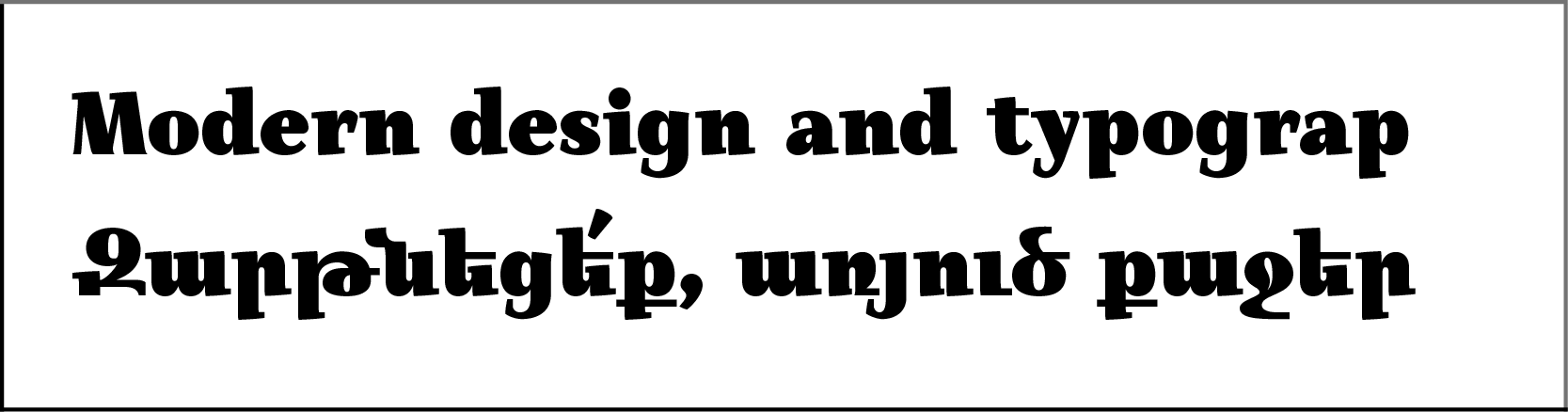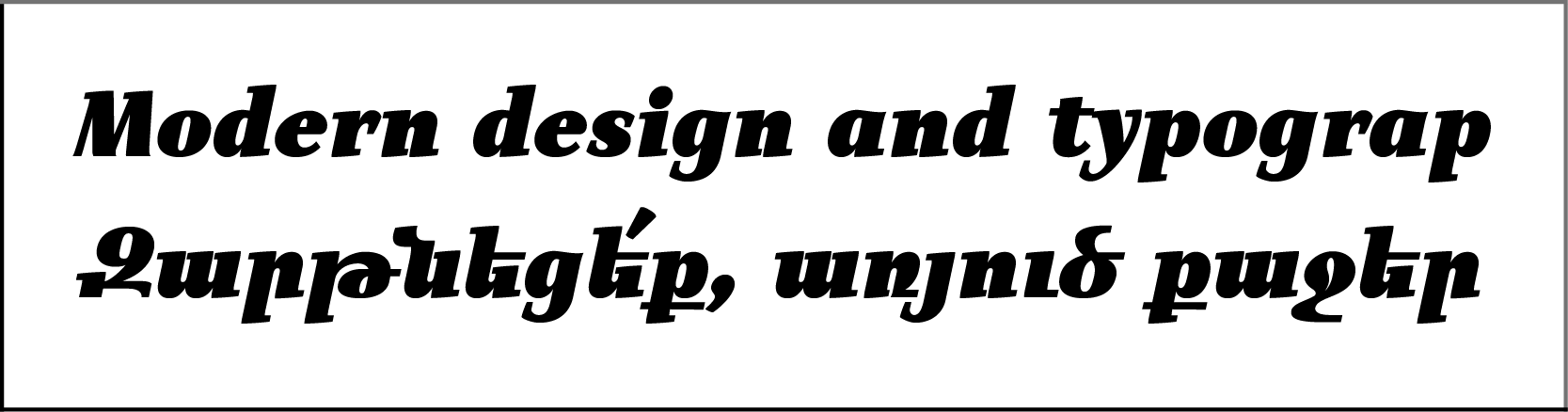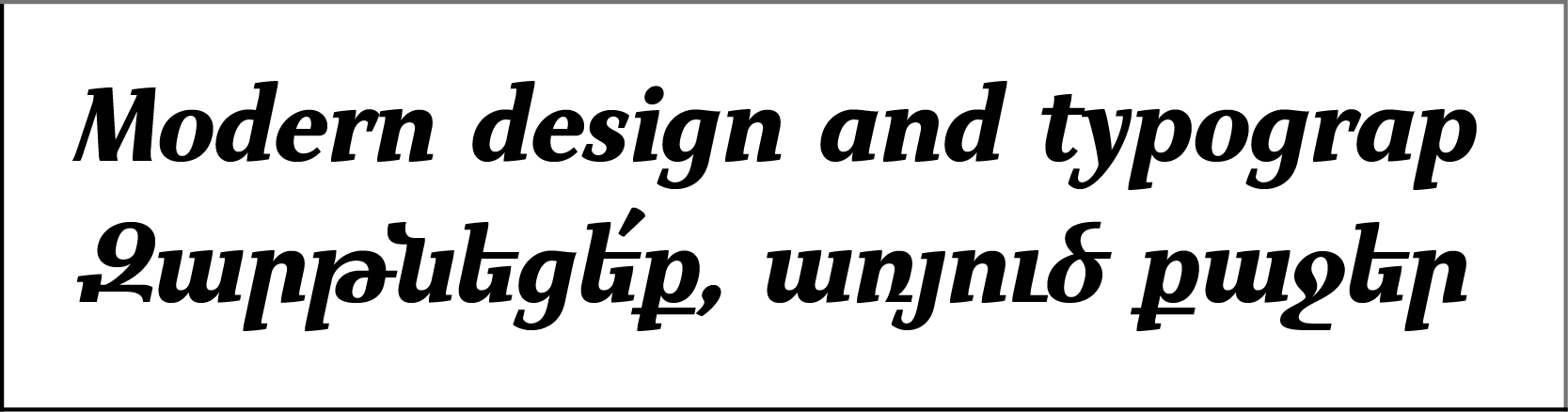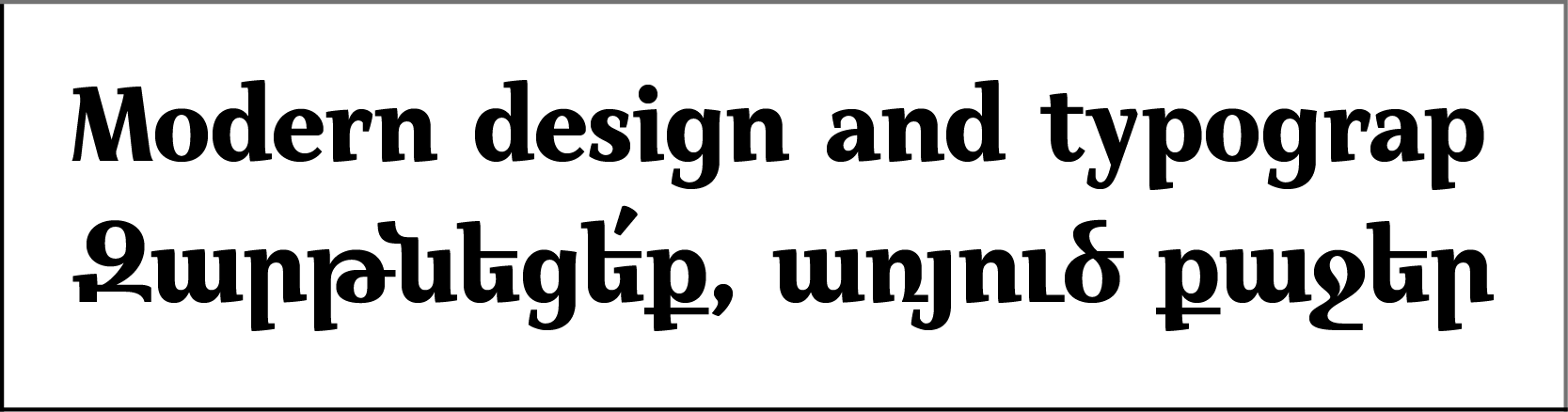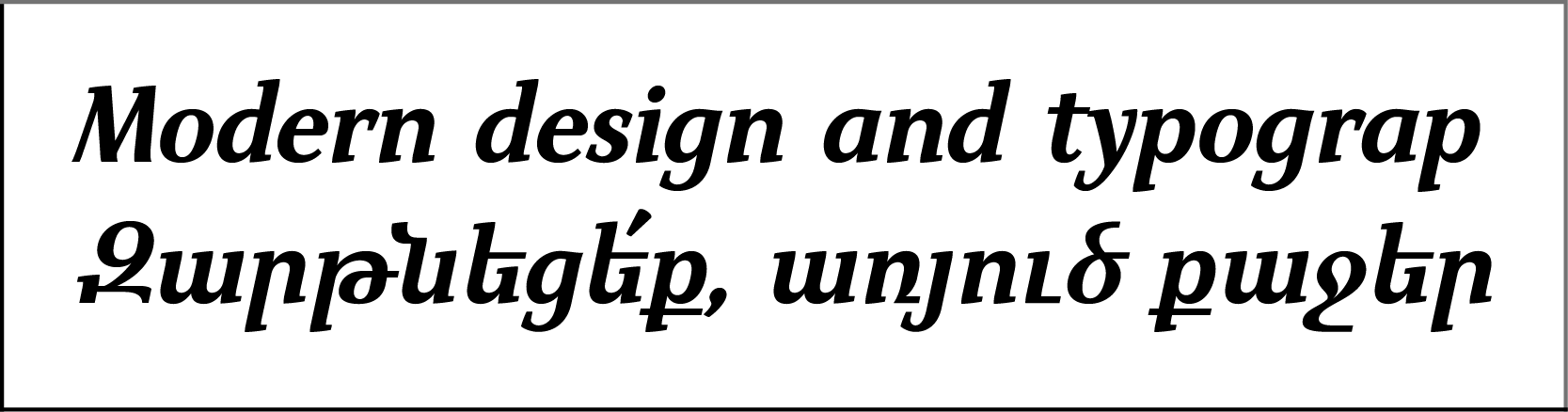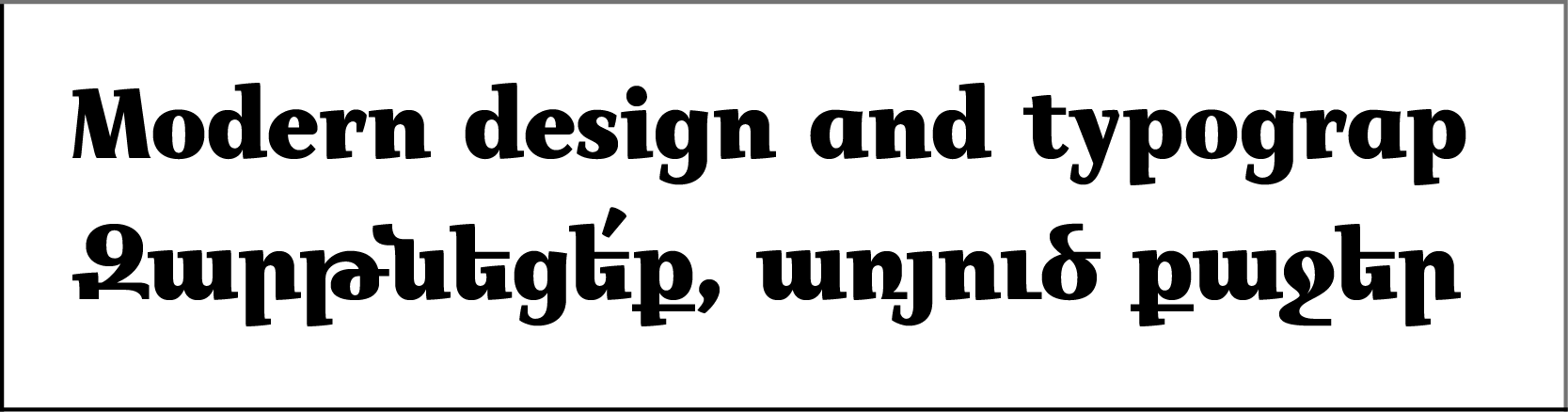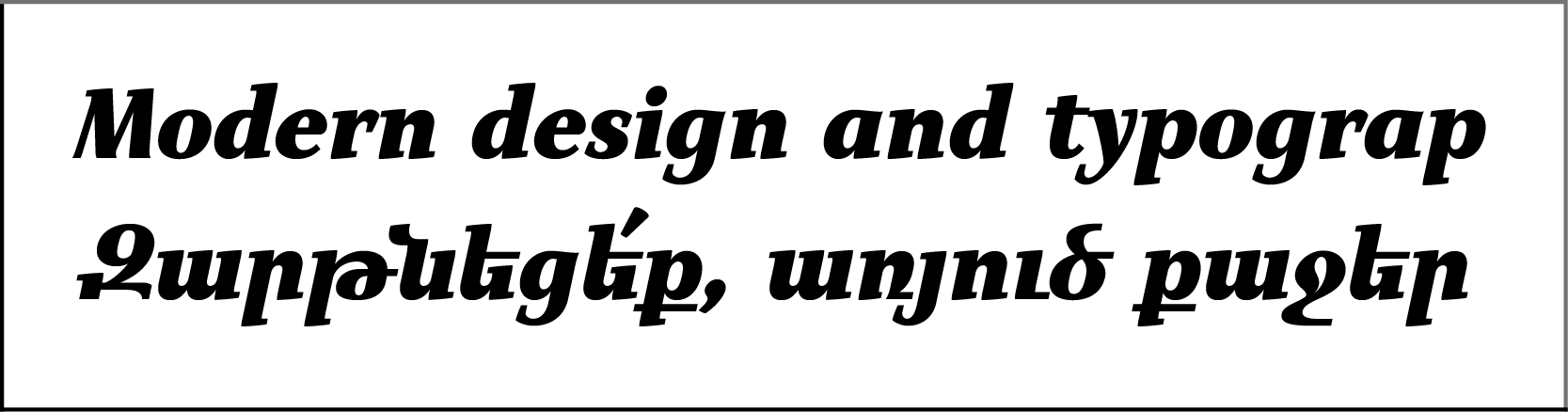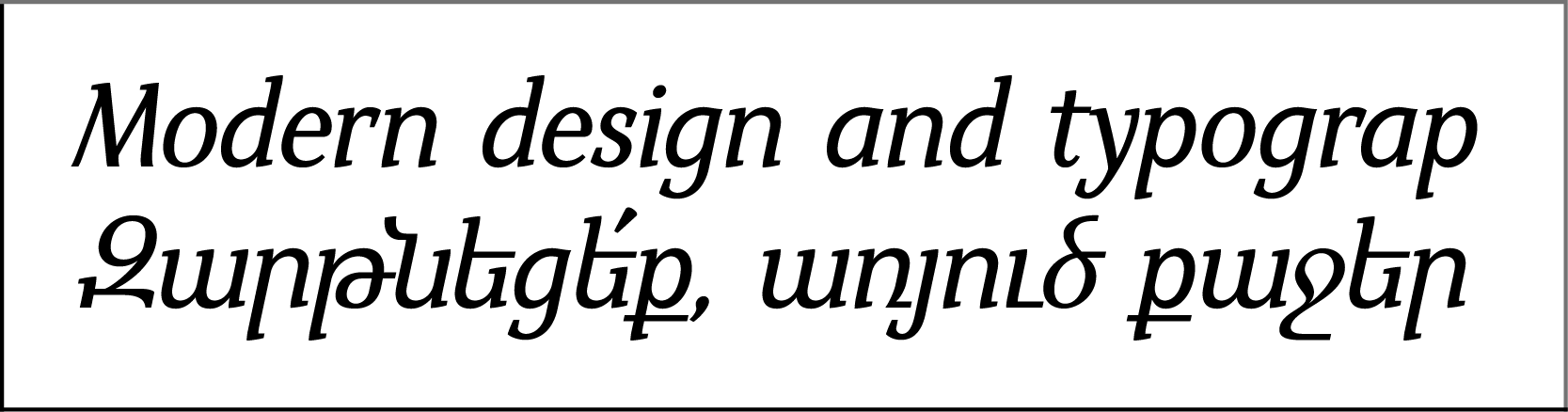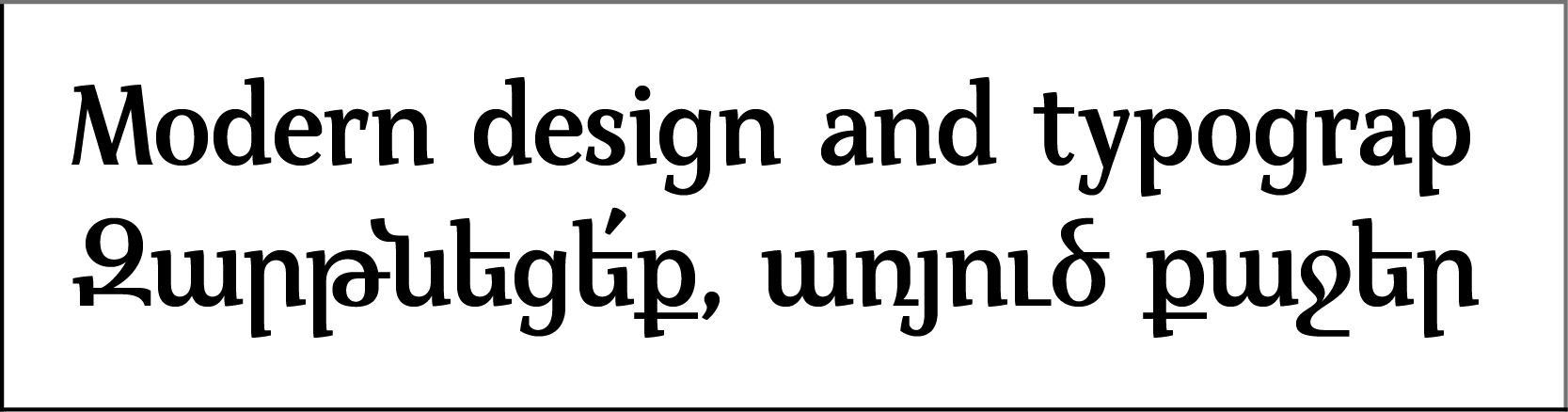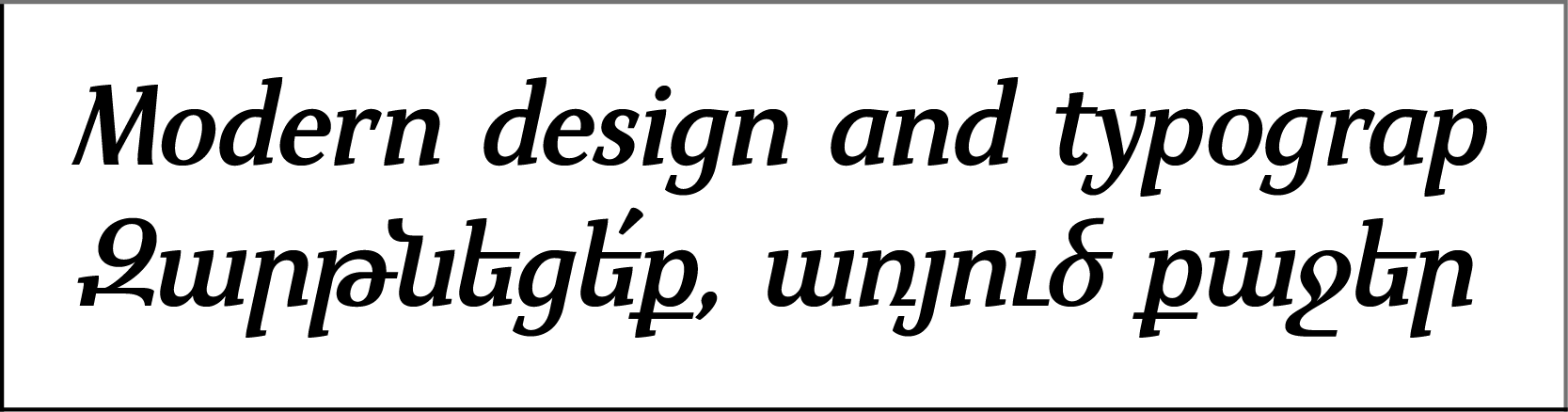
HASH Astghik Serif
Designer: Hrachuhi Grigoryan
Design date: 2013
This typefaces was awarded special mention prize at the GRANSHAN 2013 non-Latin typedesign competition.
The font family includes: Armenian and Latin alphabet systems. It has 12 weights:   Regular, Italic, Medium, Medium Italic, DemiBold, DemiBold Italic, Bold, Bold Italic, ExtraBold, ExtraBold Italic, Black, Black Italic.
To be used in texts, poster, and titles.